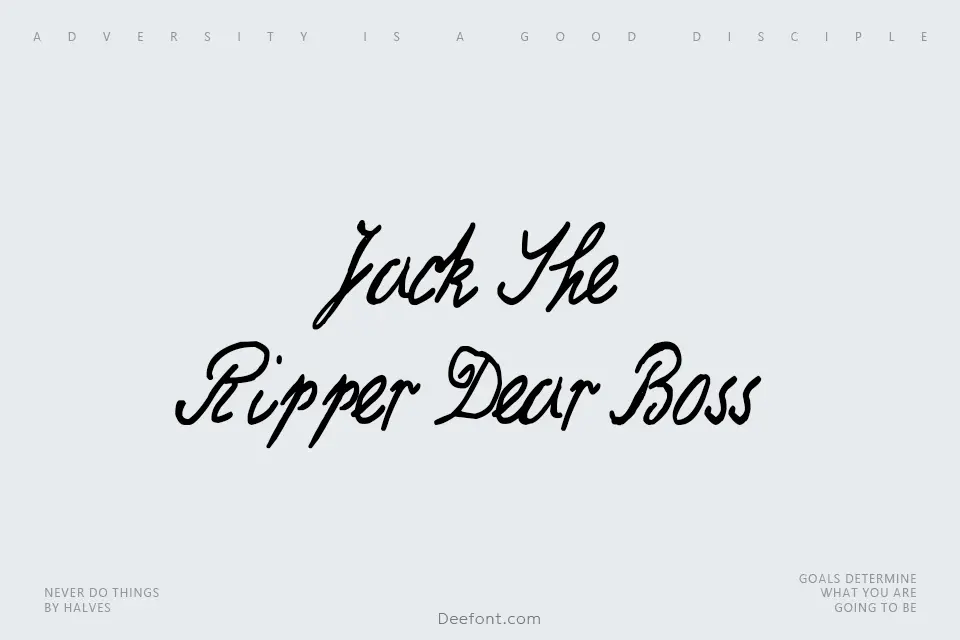
Jack The Ripper Dear Boss Font
Jack The Ripper Dear Boss Font is a distinctive handwritten script typeface that captures the sinister aesthetic of the original "Dear Boss" letter sent to Scotland Yard. This font features raw, irregular letterforms with authentic period characteristics ideal for horror movie titles, Halloween posters, vintage book covers, and edgy design projects. With 236 carefully crafted glyphs, it delivers powerful visual impact for display purposes while maintaining readability. The typeface combines historical intrigue with modern design versatility, making it perfect for creatives seeking unique typography for posters, logos, and thematic branding projects.